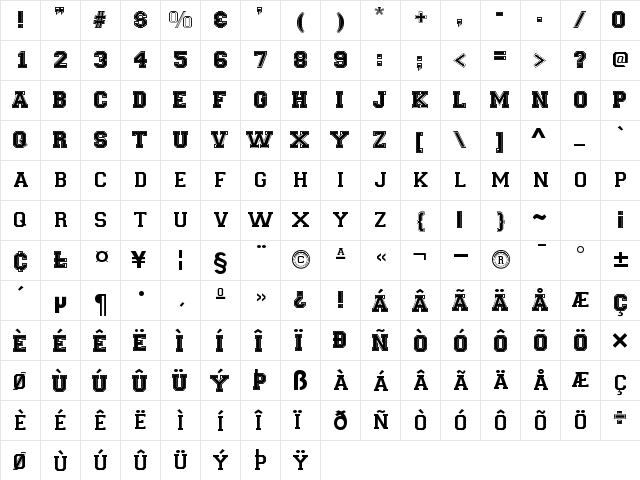
Varsity Regular
Design Context for Varsity Typeface
Varsity brings high-energy athletic personality to the page — its confident, muscular forms are built for impact.
Built for sports team identities, athletic apparel, event posters, and high-energy promotional material.
Font Pairing: Use alongside a condensed or geometric sans for supporting copy — keep the pairing bold, functional, and free of ornament.
Pro Tip: Varsity thrives on contrast — try it large, bold, and tight against a clean background for maximum visual impact.